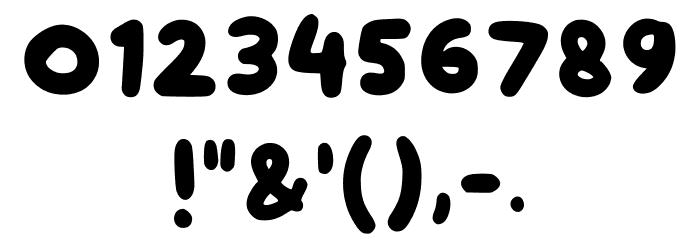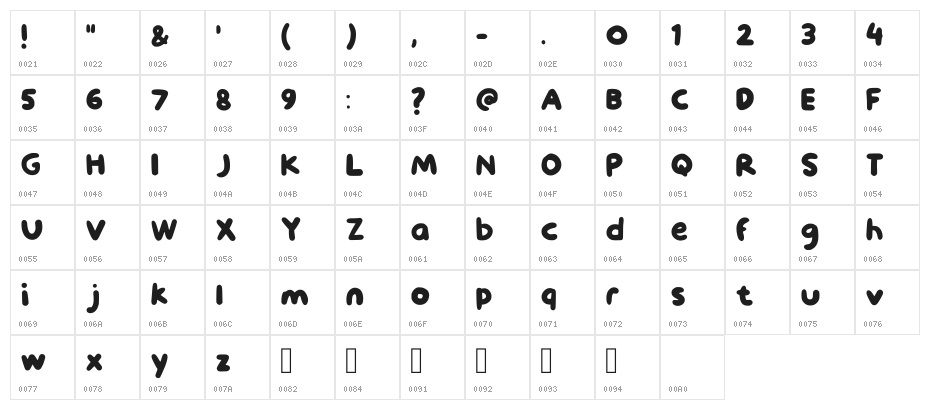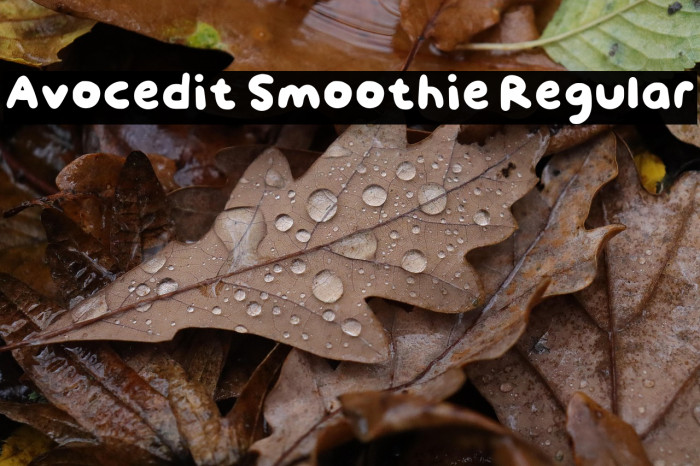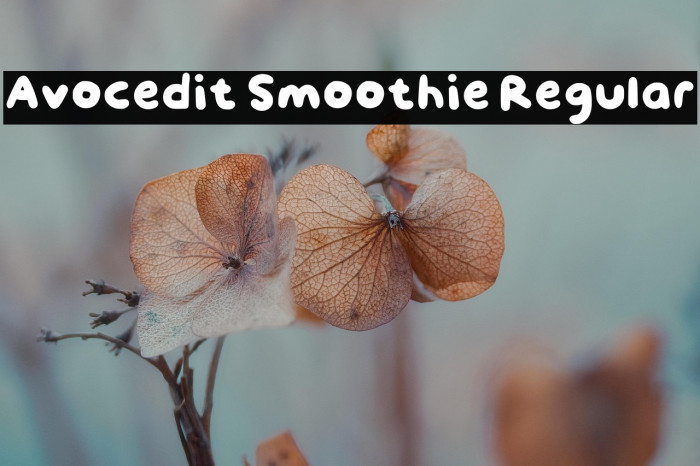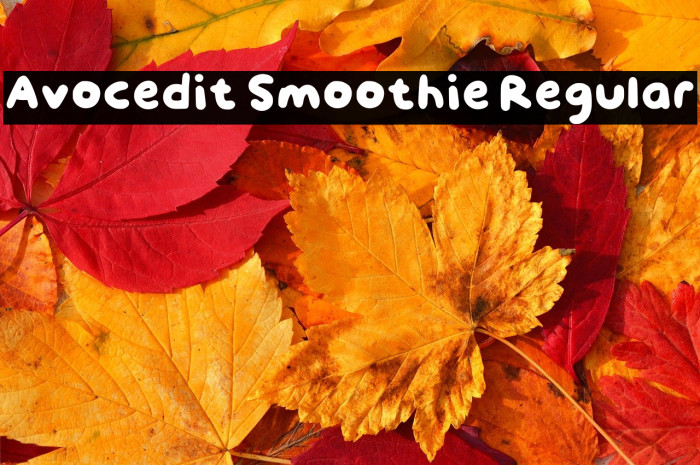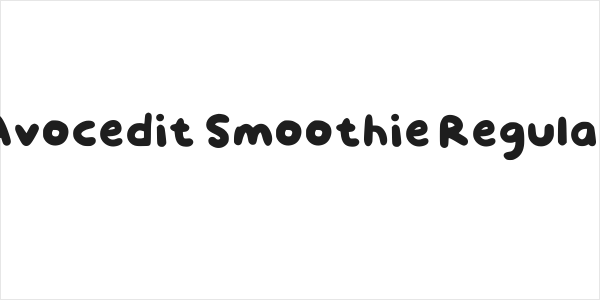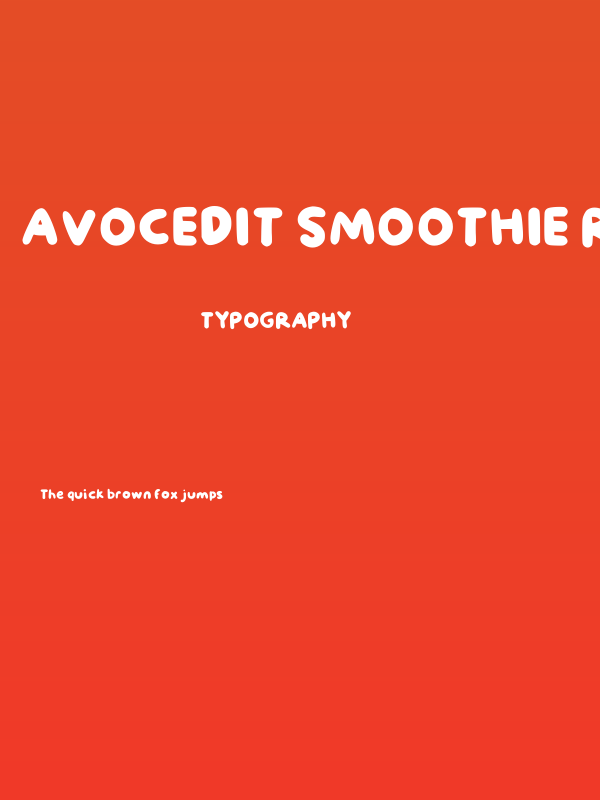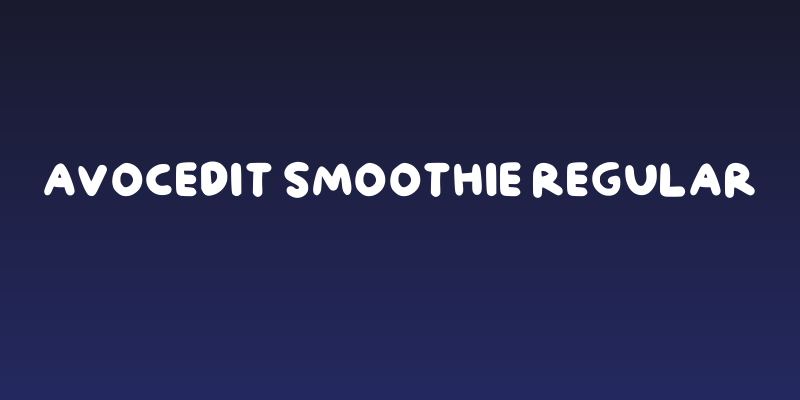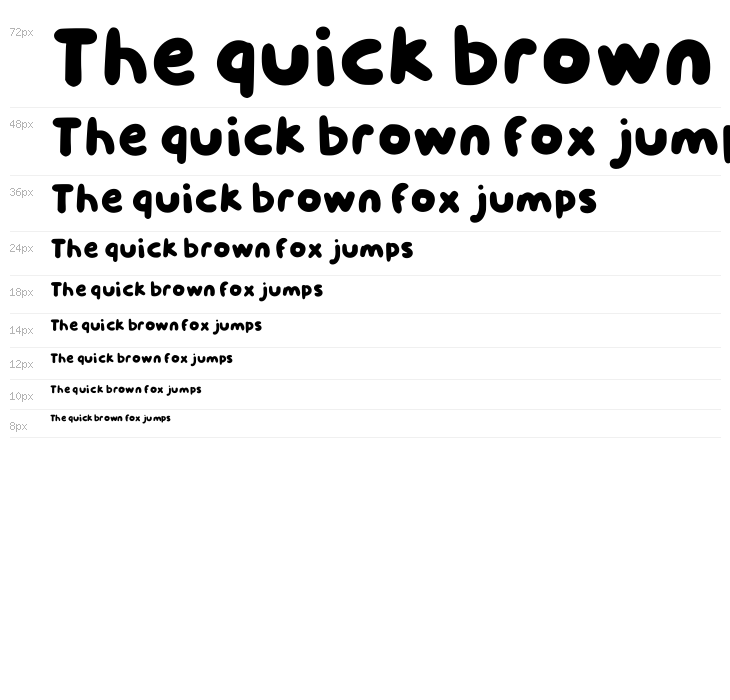
Avocedit Smoothie Regular Font
Avocedit Smoothie Regular Description
This playful and rounded font features a smooth, bold appearance with a friendly and approachable style. The characters are uniformly thick, giving it a consistent and cohesive look. The rounded edges and lack of sharp angles contribute to its soft and inviting feel, making it ideal for casual and fun designs. The font maintains a uniform weight throughout, ensuring readability while adding a touch of whimsy. Its boldness makes it stand out, yet the rounded forms keep it from being too overpowering. The spacing between characters is normal, allowing for clear legibility without feeling cramped.
| Proposed Projects | Ideal for children's books, playful branding, casual invitations, and fun social media graphics. |